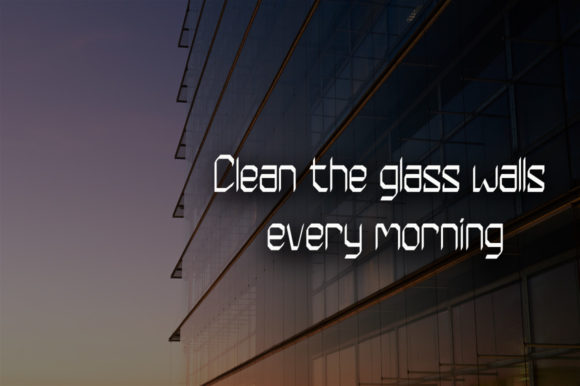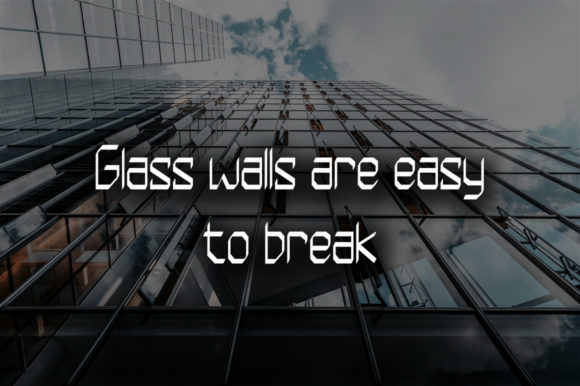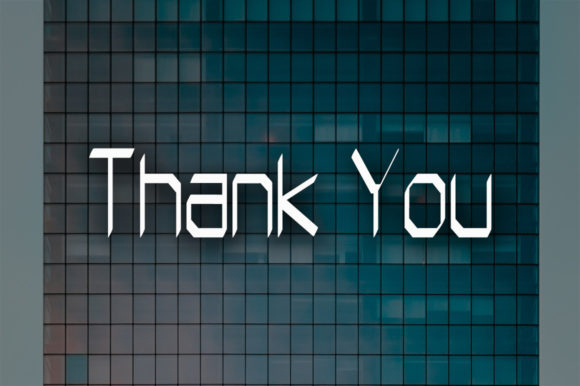
Unlocking the Future of Design: Introducing Glass Wall Font
Have you ever been stuck on a design project, struggling to find the perfect font to convey your vision? You’re not alone. As designers, we’ve all been there – pouring over font libraries, testing different styles, and hoping to stumble upon that elusive “aha” moment. But what if I told you that moment is within reach, thanks to the innovative Glass Wall Font?
This geometric-styled display font is more than just a pretty face – it’s a game-changer for designers looking to add a touch of futurism to their projects. Whether you’re crafting a futuristic web design or creating a sleek business card, Glass Wall Font is the perfect tool for the job. With its clean lines and robotic feel, it’s no wonder designers are clamoring to get their hands on this versatile and stylish font.
Key Features of Glass Wall Font
- Font Style: Sans-serif, with a modern and sleek design.
- Unique Characteristics: Features a unique blend of transparency and texture, giving it a distinctive and modern appearance that sets it apart from other sans-serif fonts.
Review of “Glass Wall Font”
At first glance, “Glass Wall Font” ✨ seems to be a visually appealing and modern sans-serif font. It has a clean and minimalist aesthetic that would be perfect for sleek, futuristic designs. The font is highly legible, even at small sizes, making it suitable for digital applications like mobile apps and websites.
- ✨ High legibility and readability
- ✨ Modern and minimalist aesthetic
- ✨ Suitable for digital applications
- ✨ Supports a wide range of languages
However, there are some limitations to consider ⚠️. The font may not be as versatile as other popular sans-serif fonts, and its usage is limited to digital applications. Additionally, the font’s thin lines may not be suitable for print materials, where the text may become too faint.
- ⚠️ Limited versatility
- ⚠️ Not suitable for print materials
- ⚠️ Limited support for non-digital applications
Overall, “Glass Wall Font” is a solid choice for designers who are looking for a modern and legible sans-serif font for digital applications. While it may not be the most versatile font, it’s a great option for those who need a clean and minimalist aesthetic.
For best results, use Glass Wall Font for titles, headings, and emphasis. It’s particularly effective for creating a modern, sleek look. Be mindful of font size, as Glass Wall Font can be quite bold.
Some common use cases include:
- Creating a minimalist brochure or flyer.
- Designing a modern website or app interface.
- Adding a touch of sophistication to a business presentation.
Alternatives to Glass Wall Font for Designers
Inter is a highly legible sans-serif font designed for digital interfaces. It is suitable for body text, titles, and headings. Inter is a versatile font that works well in various screen sizes and resolutions. Compared to Glass Wall Font, Inter is more modern and has a cleaner design, making it ideal for digital products and websites.
Montserrat is a sans-serif font inspired by urban typography. It is designed for use in digital products, such as websites, mobile apps, and video games. Montserrat has a strong, geometric feel that works well for titles, headings, and body text. Compared to Glass Wall Font, Montserrat has a more urban and industrial aesthetic, making it suitable for projects that require a bold and modern look.
Avenir Font
Avenir is a geometric sans-serif font designed for use in digital and print media. It has a clean, modern design that works well for titles, headings, and body text. Avenir is suitable for projects that require a professional and sophisticated look. Compared to Glass Wall Font, Avenir has a more elegant and refined design, making it ideal for corporate identity, magazines, and high-end websites.